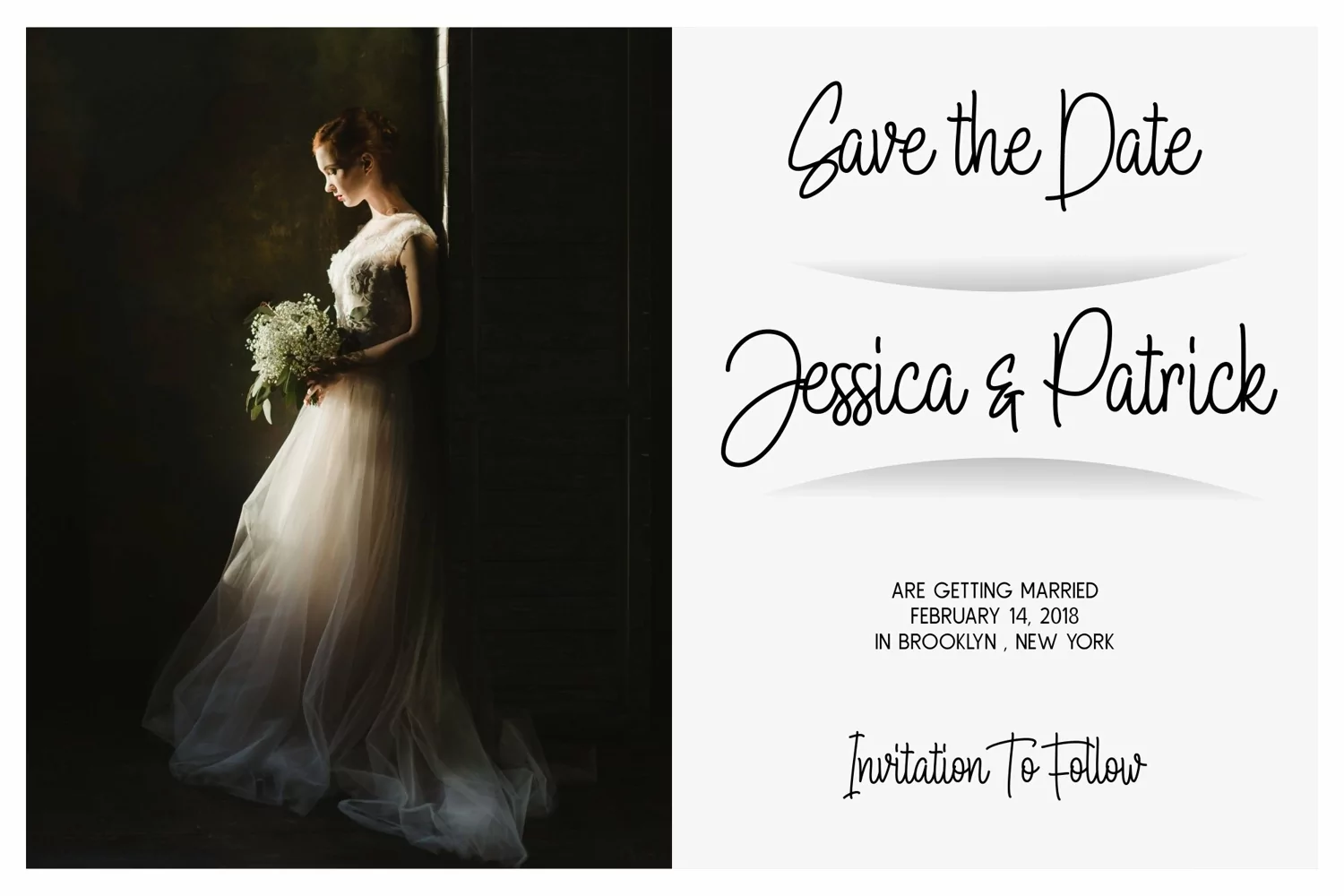
Adelline is a handwritten signature font that coming with alternates & swash. Its casual handwritten look makes it the perfect fit for logos, printed quotes, wedding invitation cards, social media headers, product packaging and a lot more !
• Full upper and lowercase alphabet
• Numbers and Punctuation
• Multilingual
• Contextual Alternates
• Stylistic Set
• Adelline Script
• Adelline Bold
• Adelline Slant
• Adelline Slant-Bold
• Adelline Sans
• Adelline Swash